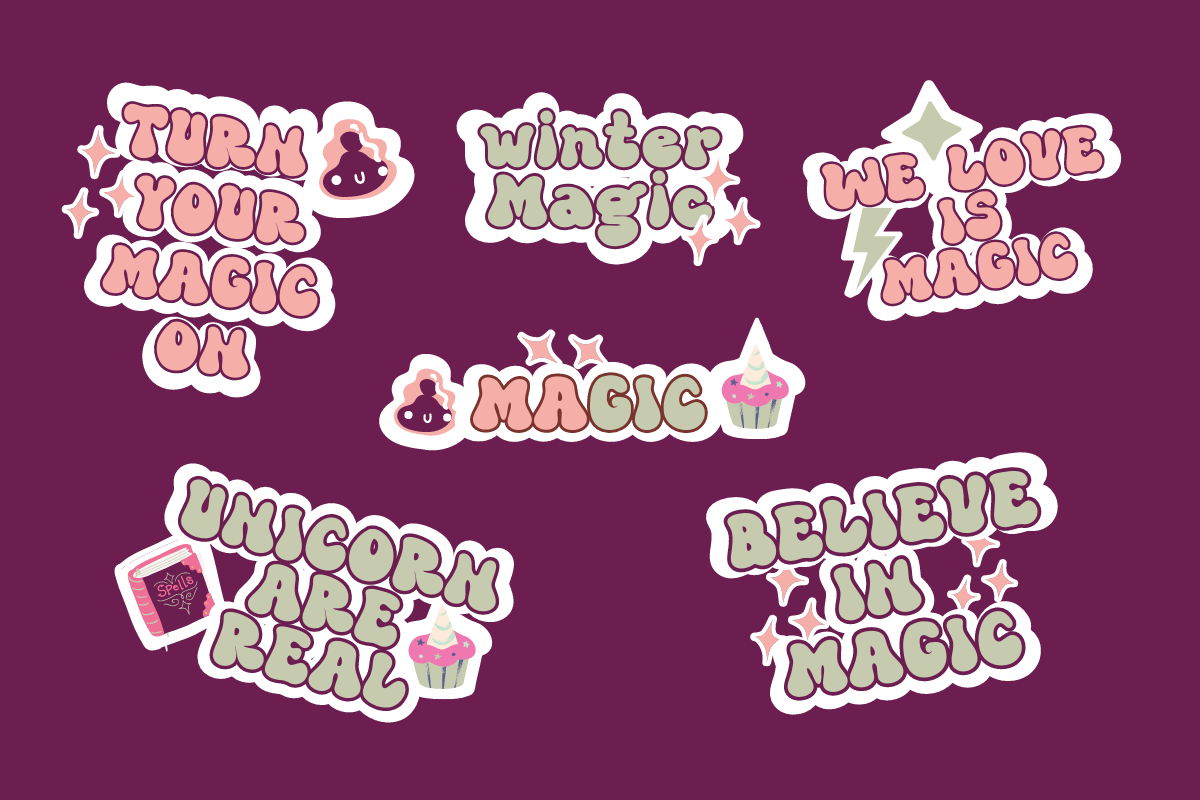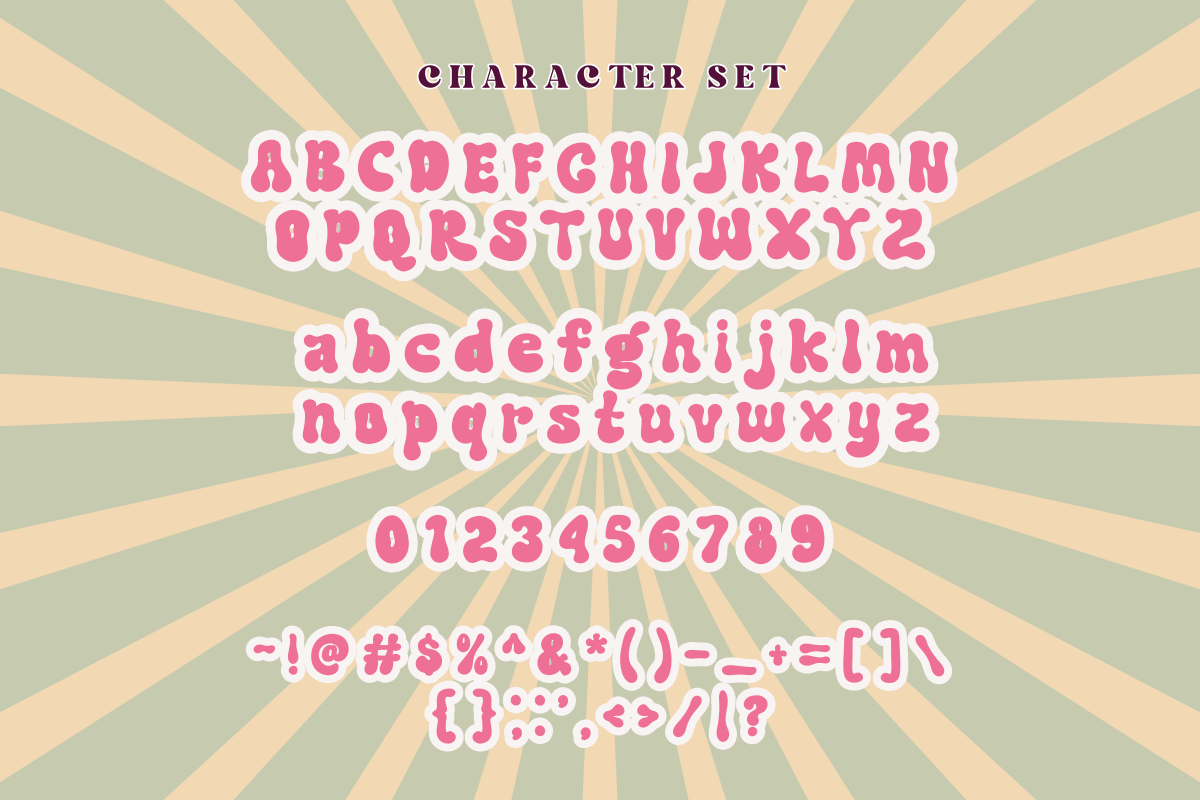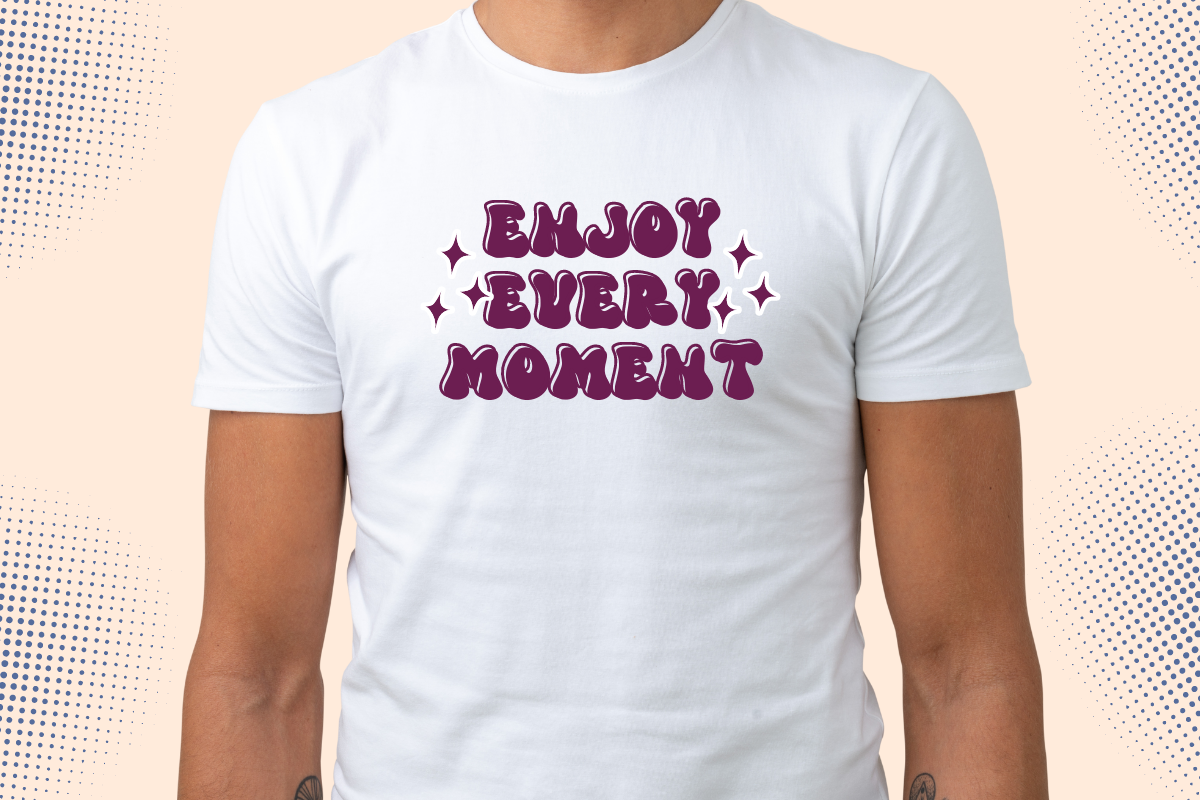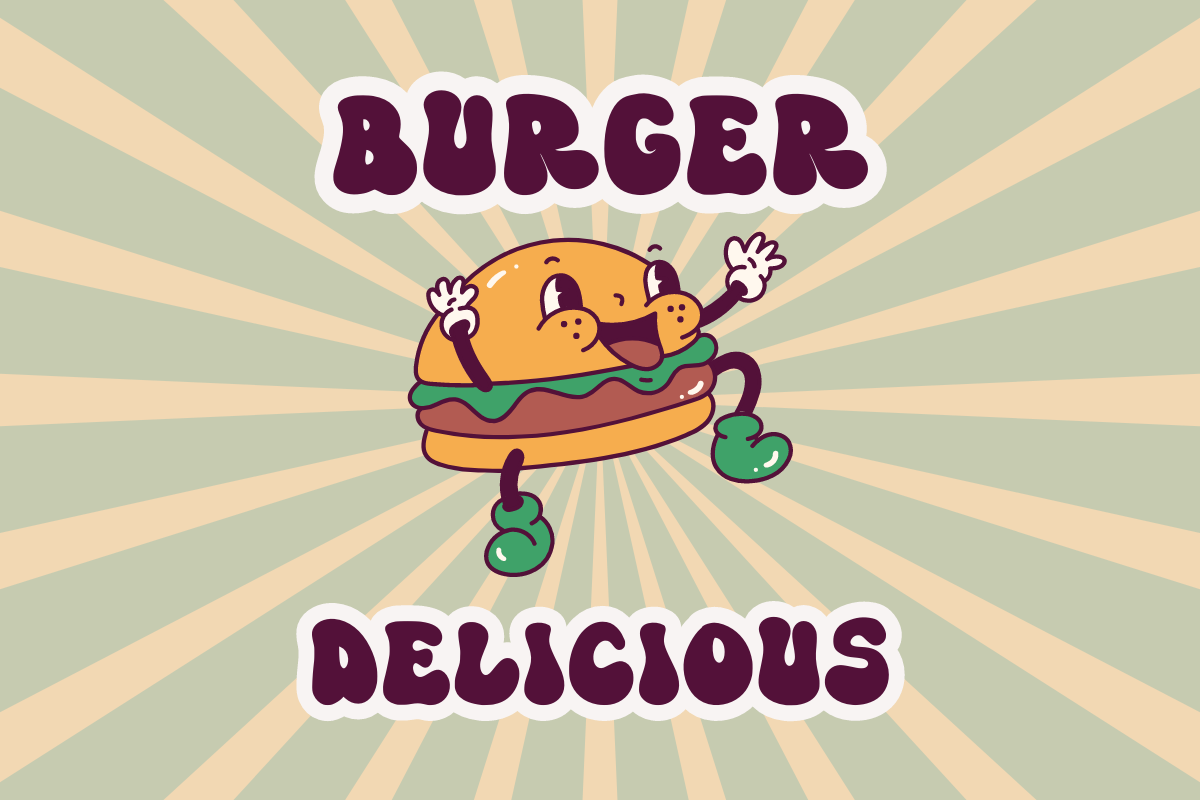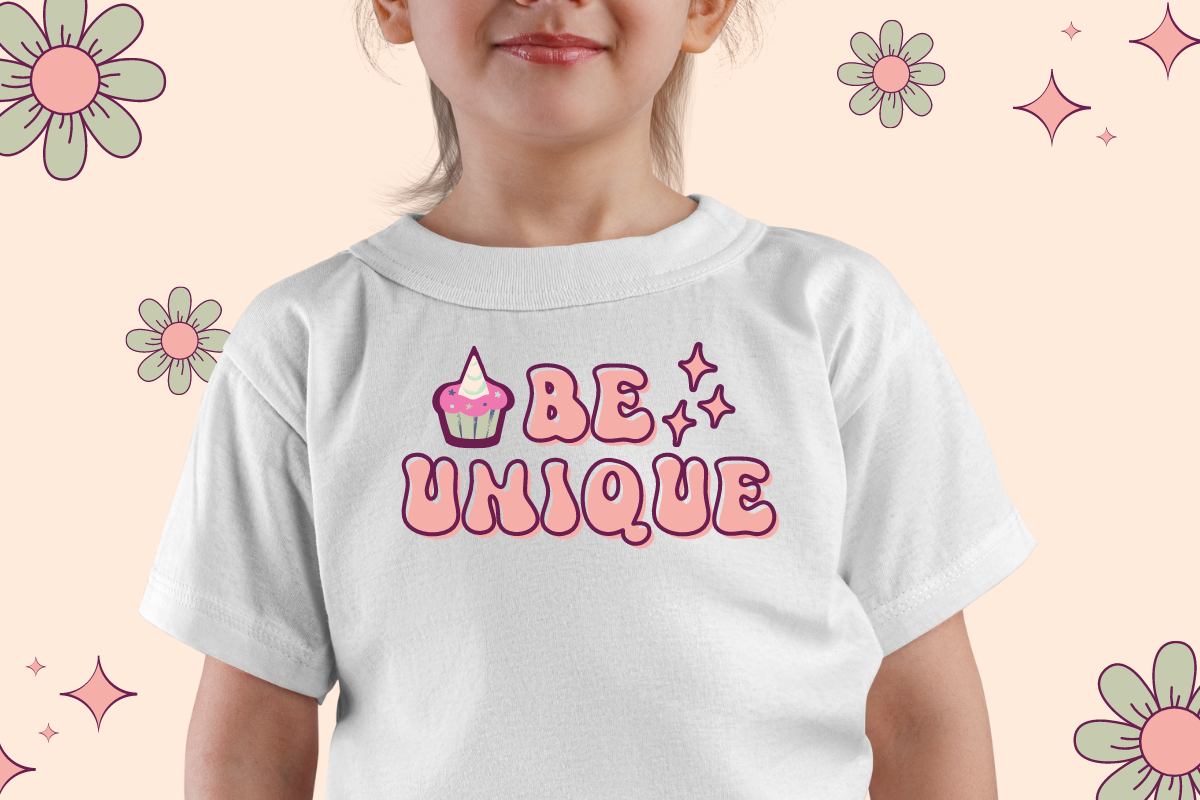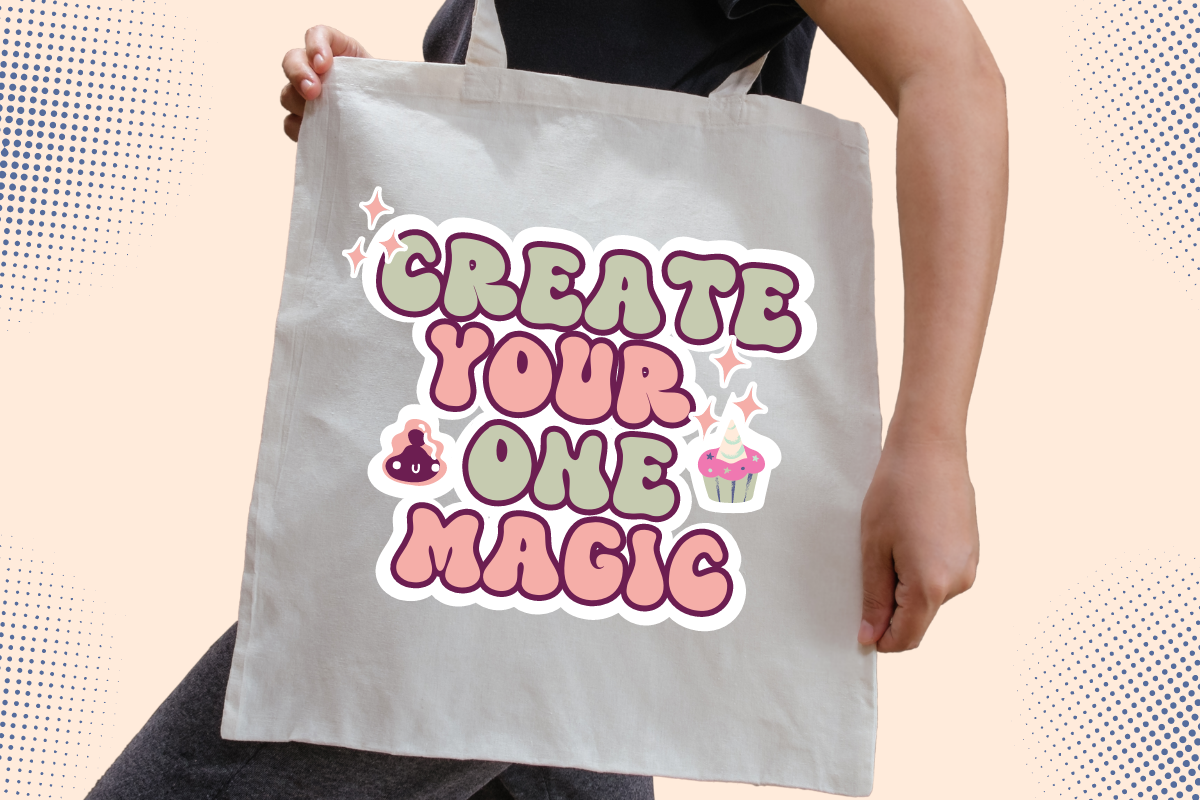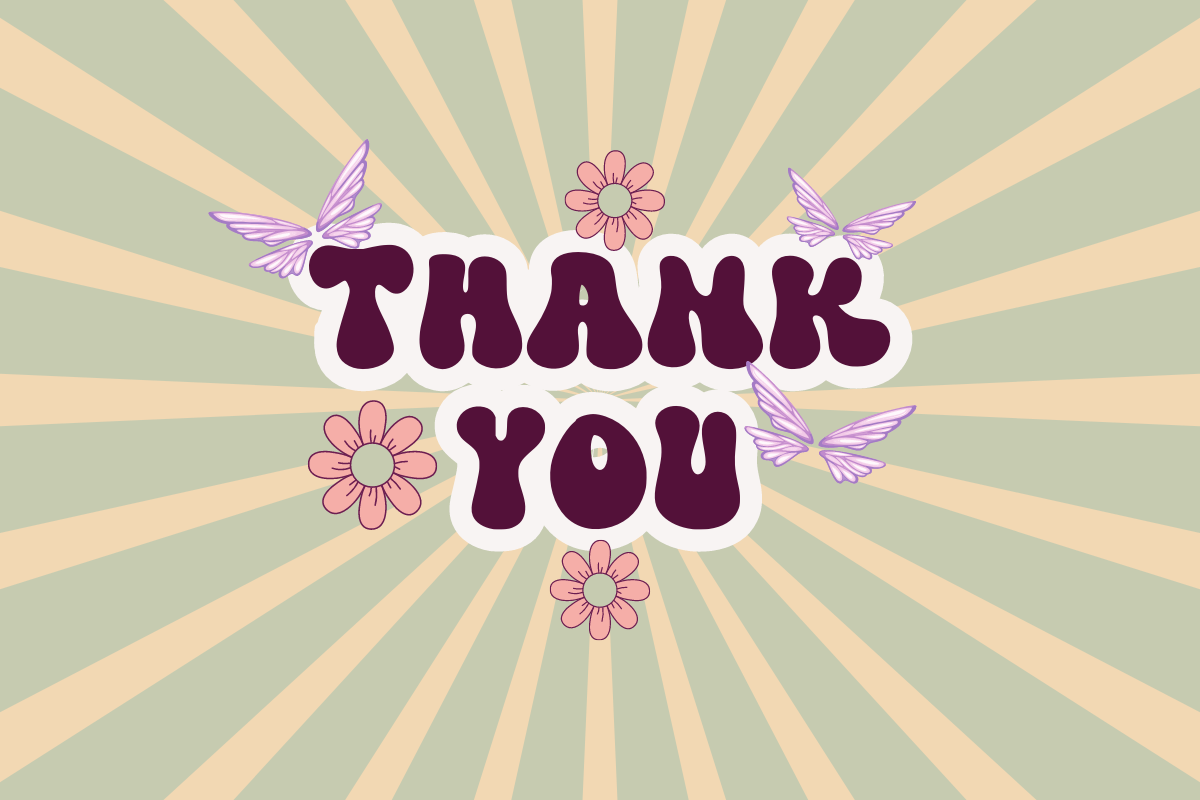
Magic Retro
Experience the charm of yesteryears with Magic Retro, a jubilant and nostalgic font designed to infuse a touch of playfulness into your designs. This lively typeface is ideal for enlivening book covers, giving posters an ageless quality, bringing out the playfulness in packaging, or making merchandise and logotypes stand out. With the Magic Retro font, your design possibilities become virtually limitless. Comprising of Magic Retro (OTF), Magic Retro (TTF), and standard glyph, this font is compatible across both PC & Mac platforms, meeting the needs of varied creators.